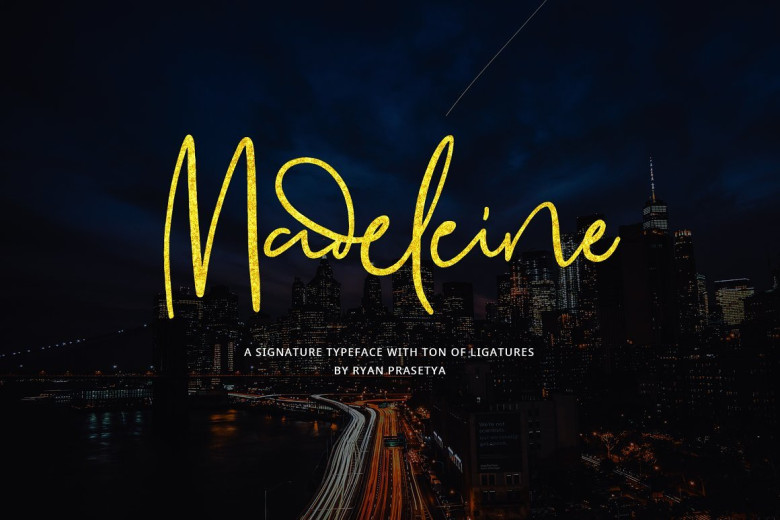
Madeleine Signature Font
Madeleine Signature Font – Free Demo
Hi ! Let me introduce the new Madeleine a new modern signature font. It is was designed and shares by Lostvoltype. Every single letter crafted carefully and every ligature has a different look from the original. Activating Ligature on your design software make the font look funny and real handwriting cause inconsistent is the key :D. Every letter has a different height and ligature make the font look as your handwriting.